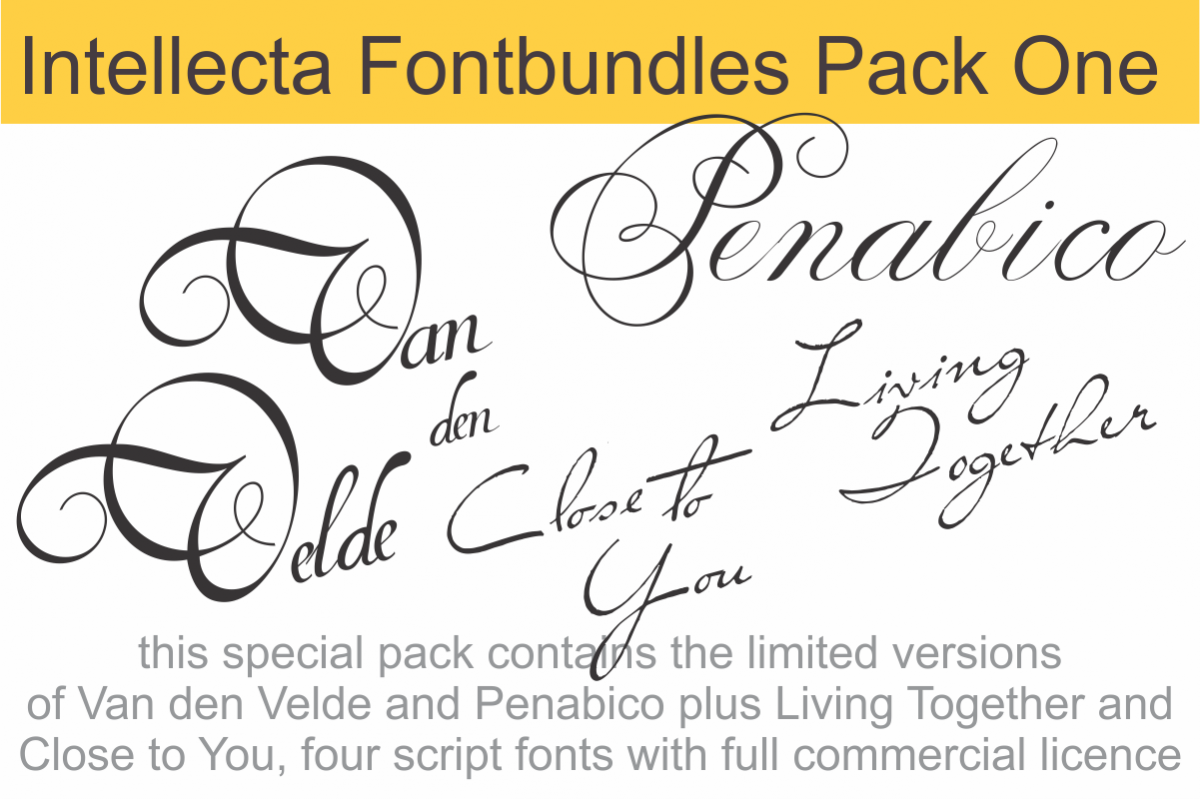
Intellecta Fontbundles Pack One
Close to You
Living Together
Van den Velde Script_limited version
Penabico LIMITED VERSION
this special pack contains the limited versions of Van den Velde and Penabico plus Living Together and Close to You, four script fonts with full commercial licence
Penabico
Van den Velde